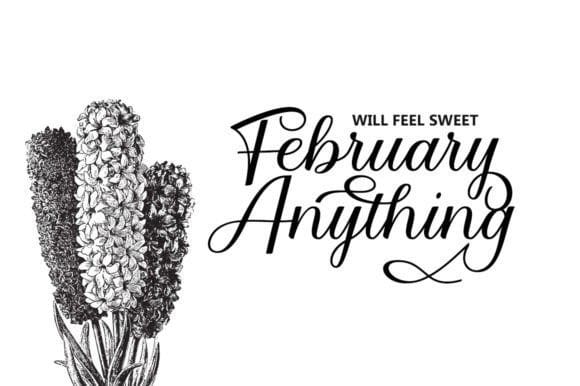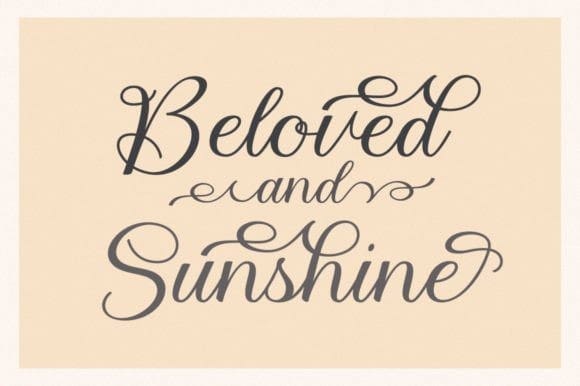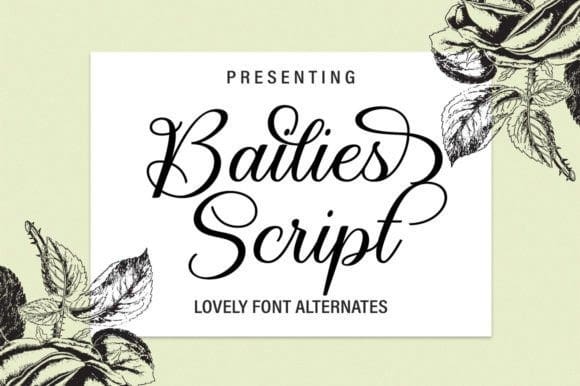
Bailies Script Font
Bailies Script Font, a stunning handwritten font that exudes beauty and elegance. Its fluid strokes and delicate curves create a graceful flow, while its intricate details and subtle flourishes add a touch of sophistication. Perfect for wedding invitations, branding, and any project in need of a refined touch.